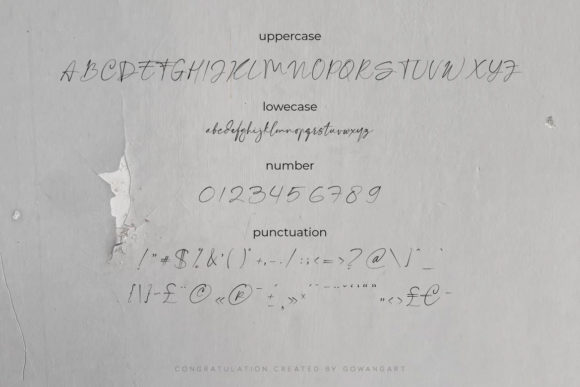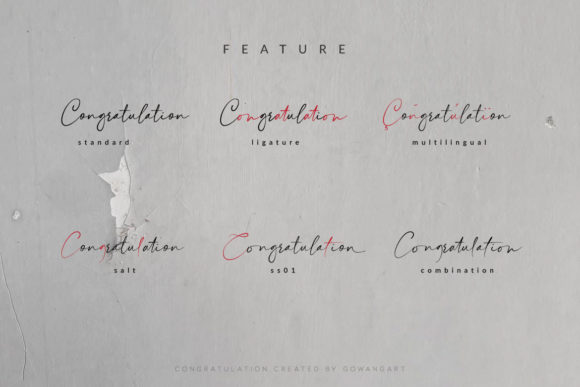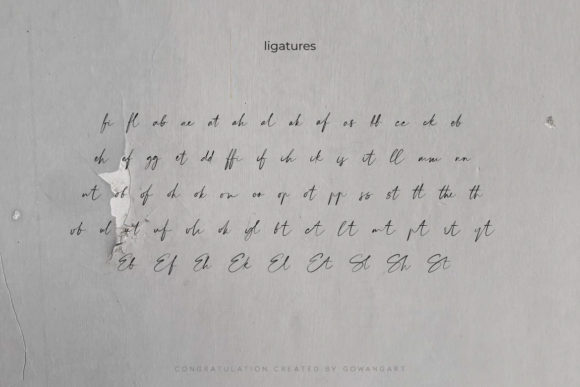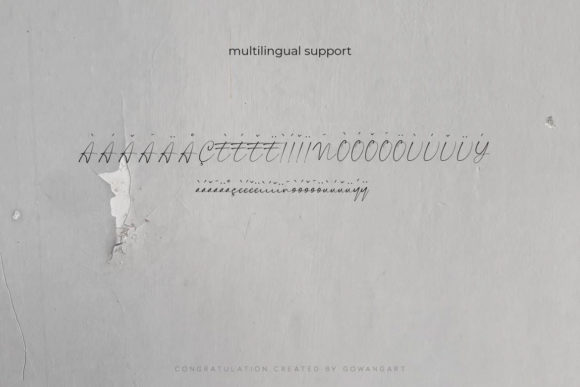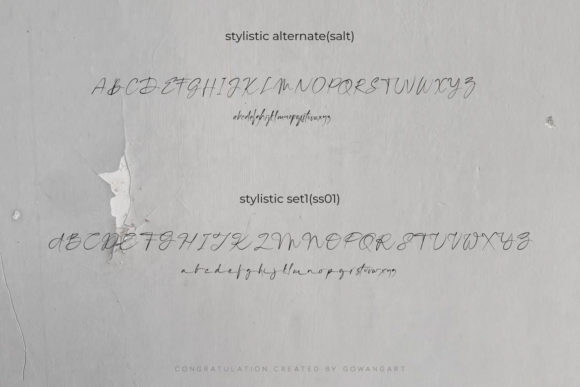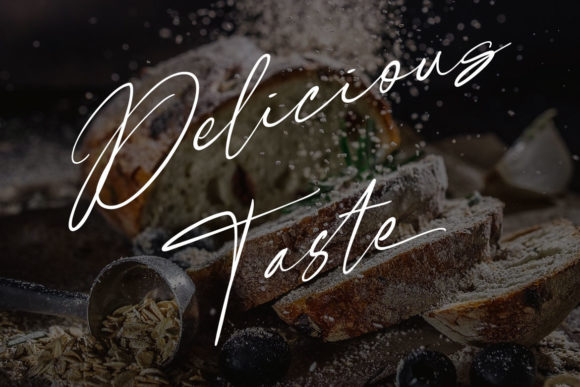
Celebrate with Elegance: The Congratulation Font
Are you looking for a font that exudes charm and sophistication? Look no further than the Congratulation font. This stunning font is perfect for designers and crafters who want to add a touch of elegance to their projects. In this article, we’ll dive into the world of Congratulation font and explore its features, benefits, and uses.
A Font that Feels Equally Charming and Elegant
Congratulation font is a masterpiece of typography, designed to make your designs stand out from the crowd. Its elegant and charming feel makes it perfect for a variety of projects, from wedding invitations to greeting cards, and from party decorations to social media graphics. Whether you’re a professional designer or a crafter, Congratulation font is sure to impress.
Stunning on a Variety of Designs
One of the best things about Congratulation font is its versatility. It looks stunning on a wide range of designs, from simple and minimalist to complex and ornate. Whether you’re creating a bold and eye-catching poster or a delicate and intricate illustration, Congratulation font is sure to add a touch of elegance and sophistication.
Congratulation font is PUA (Private Use Area) encoded, which means that you can access all of the glyphs and swashes with ease. PUA encoding allows designers to access a wide range of characters and symbols that are not available in standard fonts. This means that you can add unique and creative touches to your designs, making them truly stand out.
For those who are new to typography, PUA encoding is a way of encoding fonts that allows designers to access a wide range of characters and symbols. In simple terms, PUA encoding is a way of unlocking the full potential of a font, allowing designers to create unique and creative designs.
Benefits of Using Congratulation Font
So, what are the benefits of using Congratulation font? Here are just a few:
• Elegance and sophistication: Congratulation font adds a touch of elegance and sophistication to any design.
• Versatility: Congratulation font looks stunning on a wide range of designs, from simple to complex.
• Easy access to glyphs and swashes: PUA encoding makes it easy to access all of the glyphs and swashes, allowing designers to create unique and creative designs.
• Perfect for designers and crafters: Congratulation font is perfect for both professional designers and crafters who want to add a touch of elegance to their projects.
Uses of Congratulation Font
Congratulation font is perfect for a wide range of projects, including:
• Wedding invitations: Add a touch of elegance and sophistication to your wedding invitations with Congratulation font.
• Greeting cards: Create beautiful and unique greeting cards for special occasions with Congratulation font.
• Party decorations: Add a touch of elegance to your party decorations with Congratulation font.
• Social media graphics: Create stunning social media graphics with Congratulation font.
In conclusion, Congratulation font is a stunning and elegant font that is perfect for designers and crafters. Its versatility, PUA encoding, and ease of use make it a must-have for anyone looking to add a touch of elegance and sophistication to their designs. Whether you’re creating wedding invitations, greeting cards, party decorations, or social media graphics, Congratulation font is sure to impress.